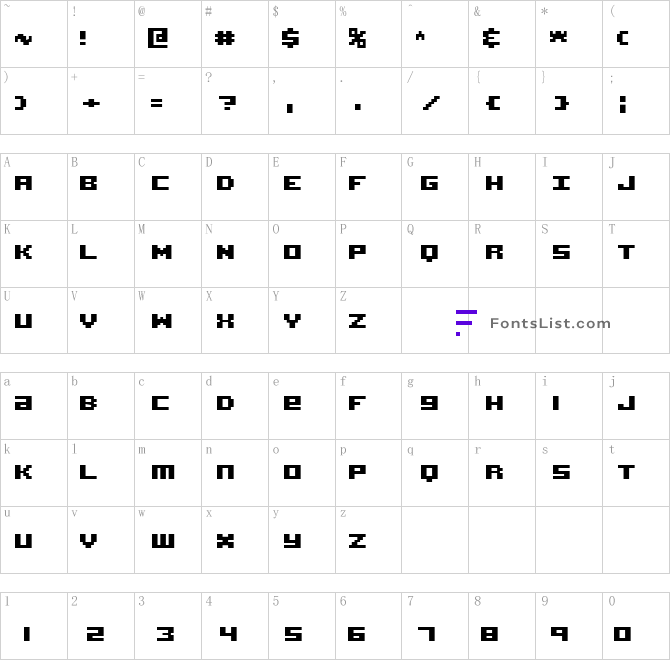
- Font Name:Acknowledge TT BRK
Acknowledge-TT-BRK.ttf is a very beautiful artistic font, Acknowledge-TT-BRK.ttf is widely used in the design and printing of various books and pictures,Acknowledge-TT-BRK.ttf has a strong visual impact,Acknowledge-TT-BRK.ttf is a commonly used font in newspapers, magazines and books, and is used in posters, e-commerce Poster design, store design, logo design, font design and other fields.Acknowledge-TT-BRK.